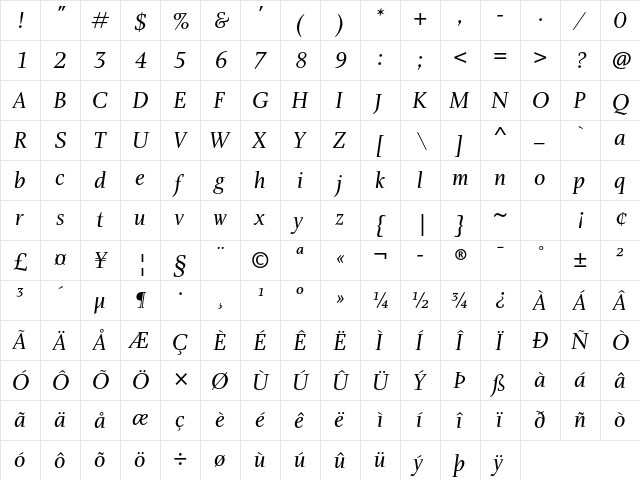
Charlotte Std Book Italic
| Designer | Michael Gills |
Design Context for Charlotte Std Typeface
Charlotte Std offers clean, dependable letterforms without strong stylistic allegiance, making it a practical choice for designers who need flexibility. The slanted form adds forward momentum and visual energy.
Pro Tip: Use Charlotte Std for emphasis, pull quotes, and subheadings where its slanted energy can add rhythm to the layout.